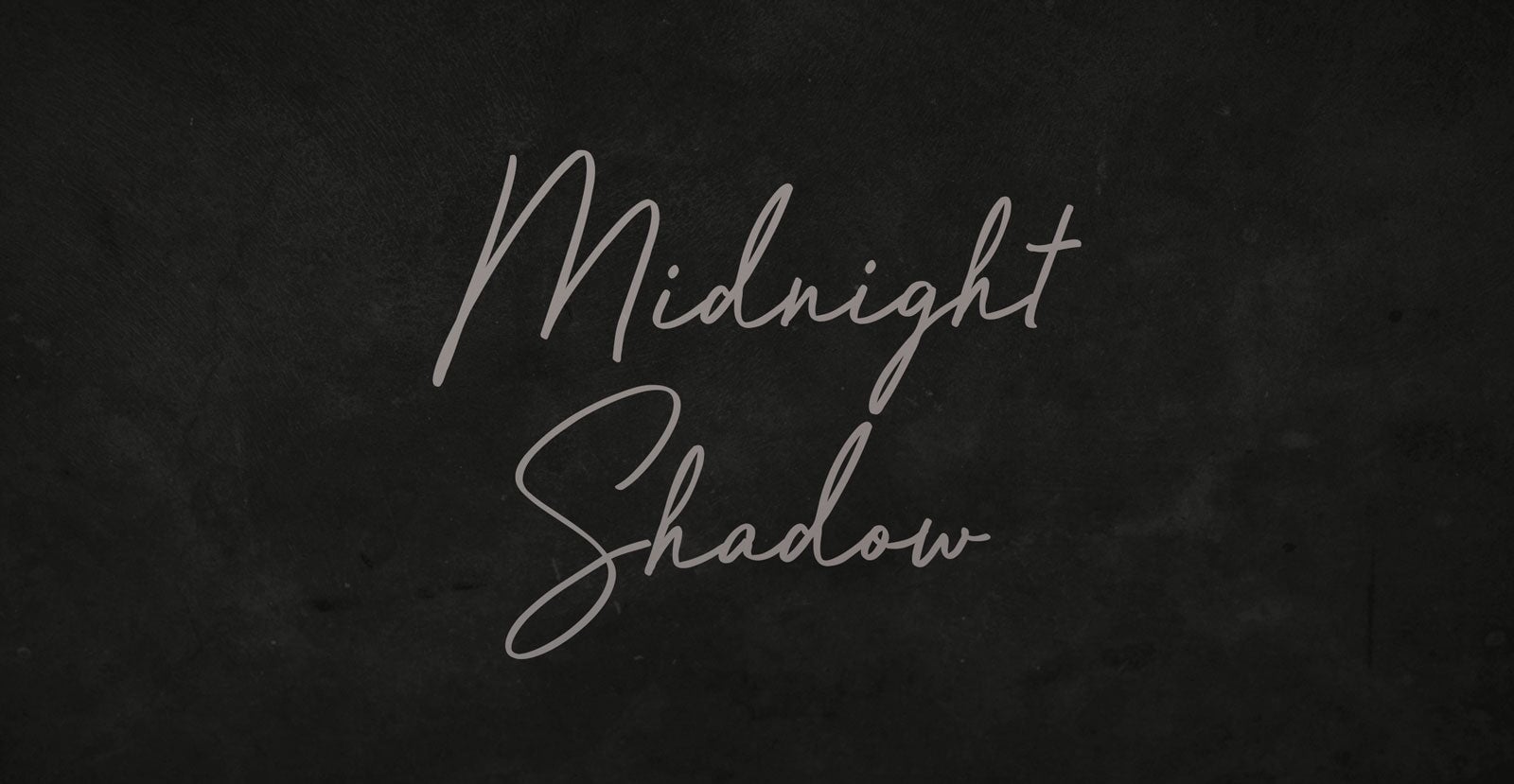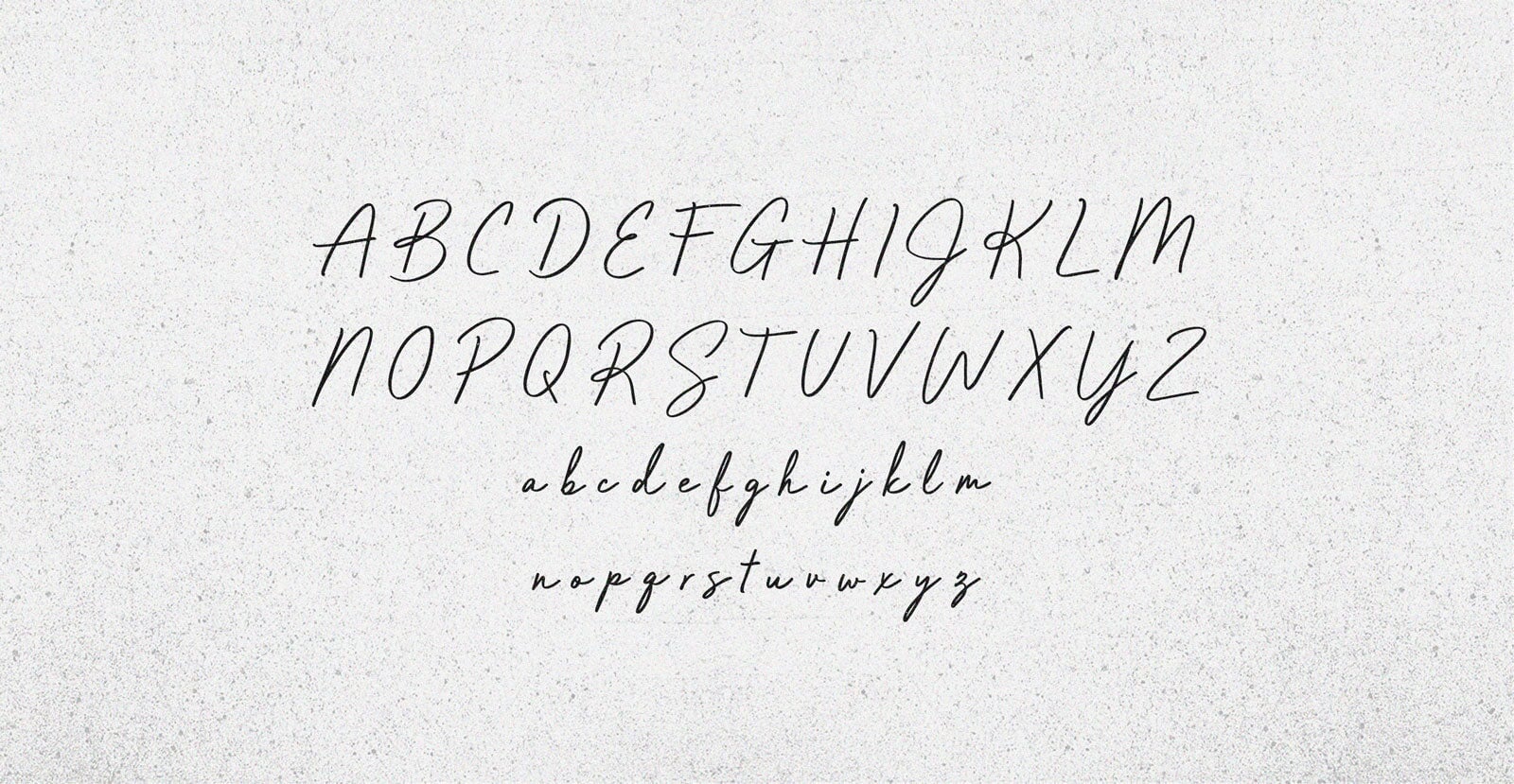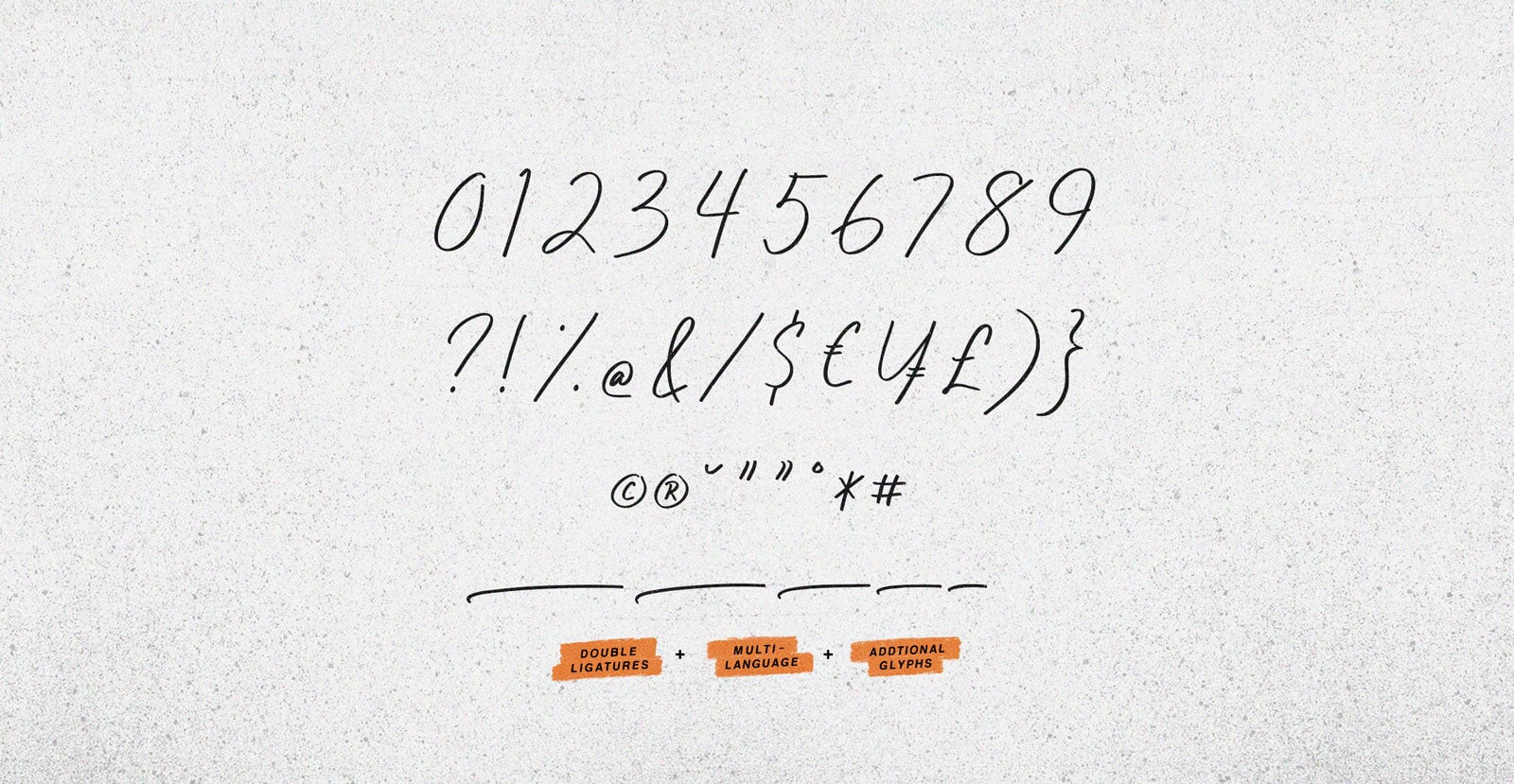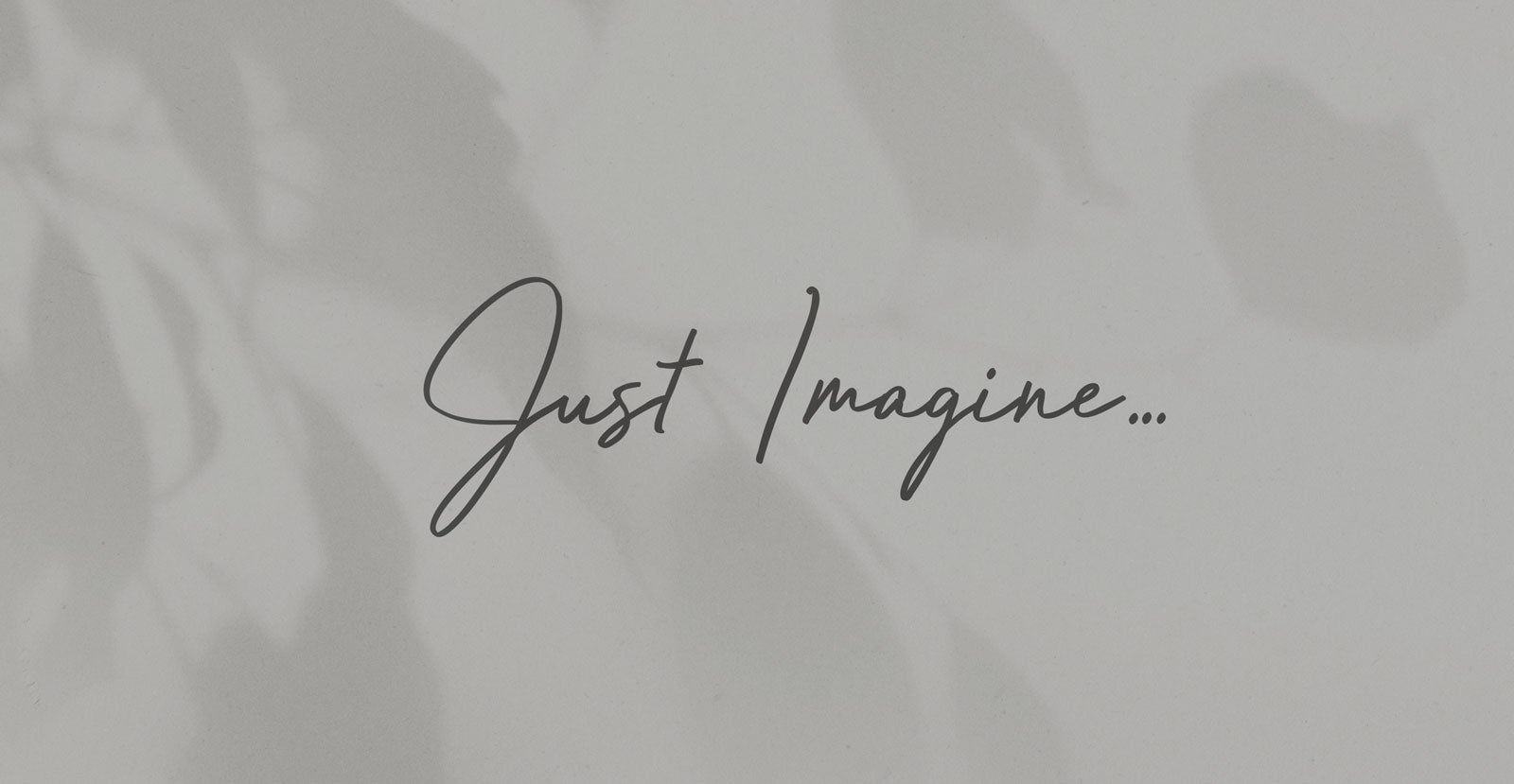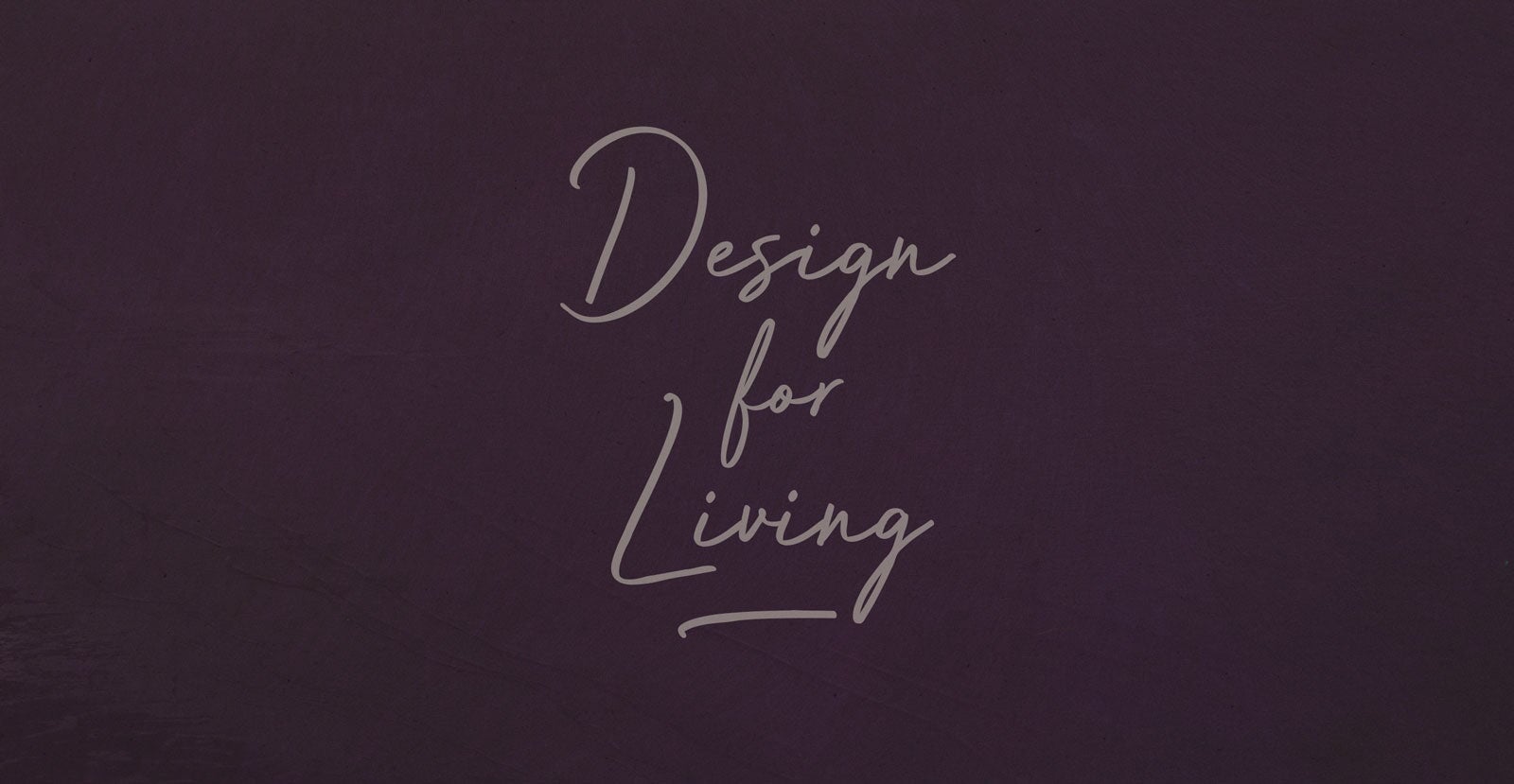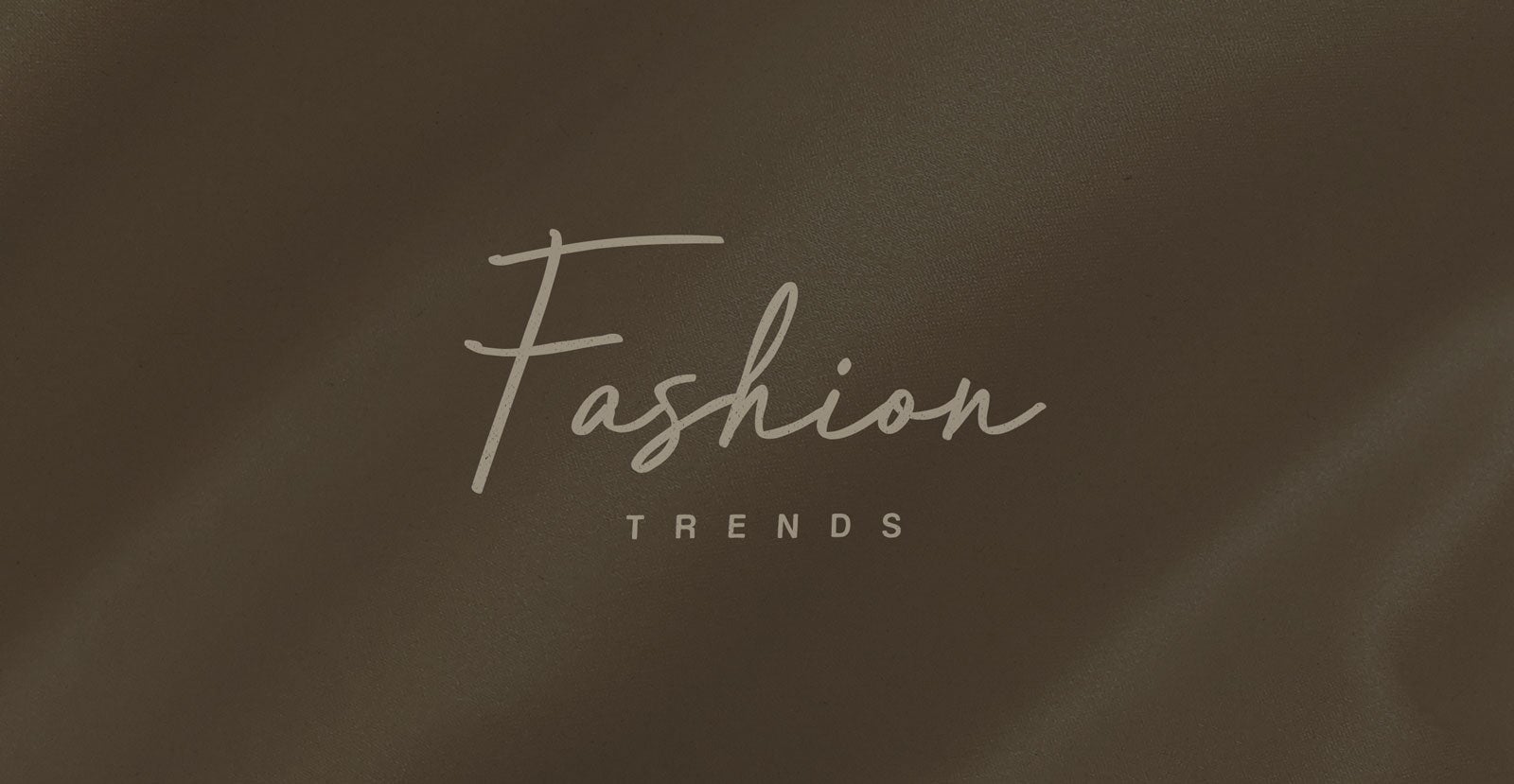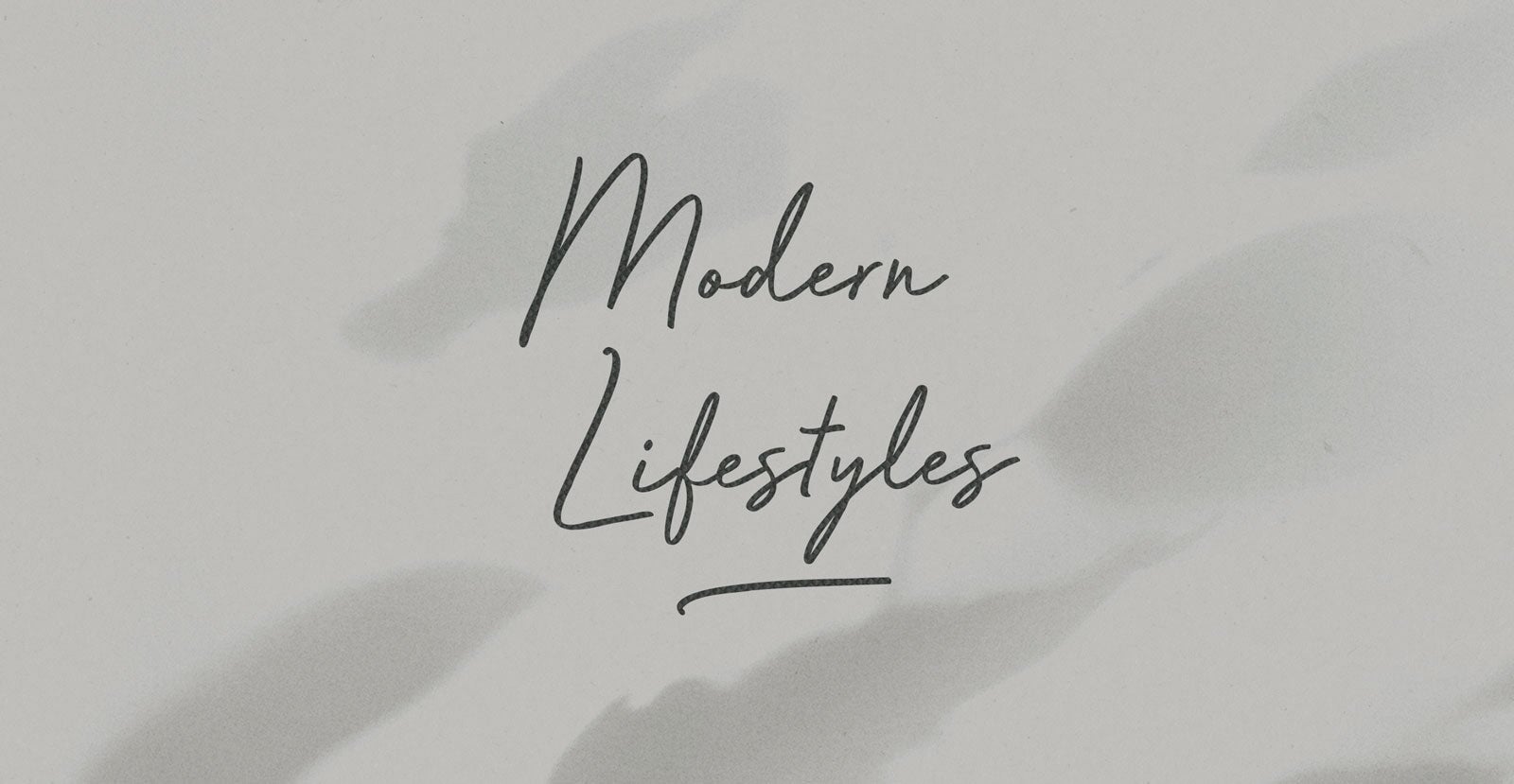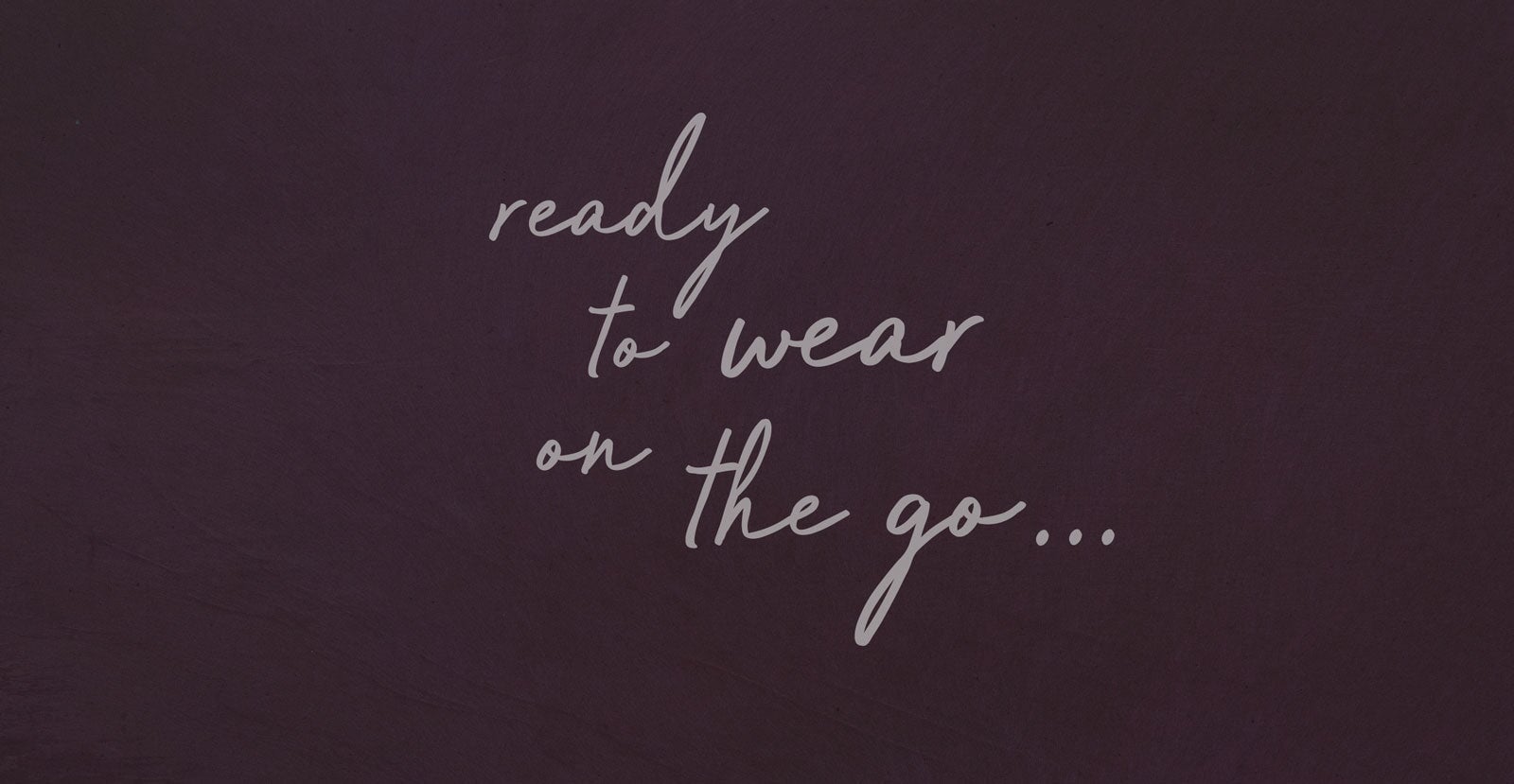
Midnight Shadow
Handwritten Pen Script Font
Midnight Shadow lingers at the edge of light. Deep, muted, and quietly intense. It doesn’t reveal, it pulls you in with presence, not volume. A hush that holds weight.